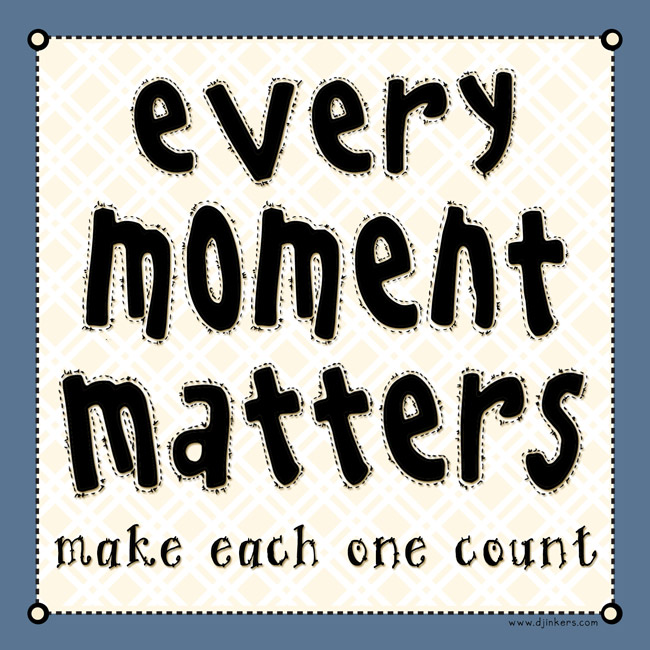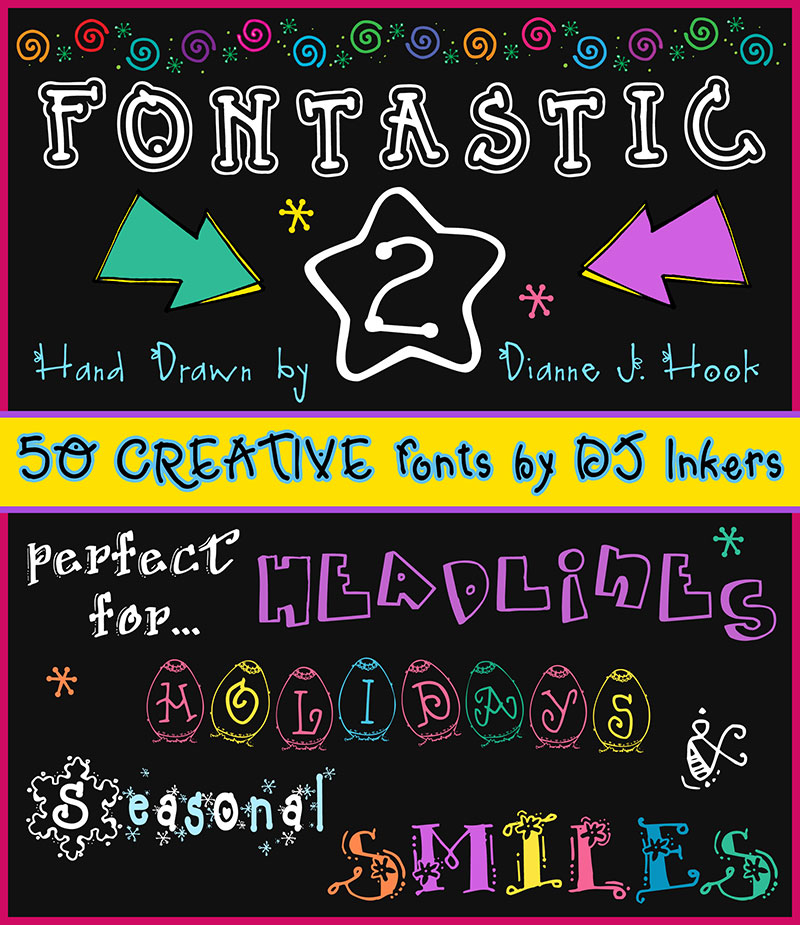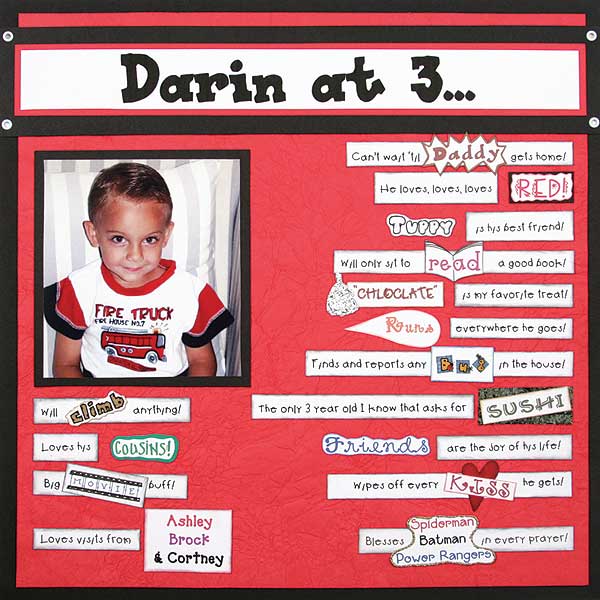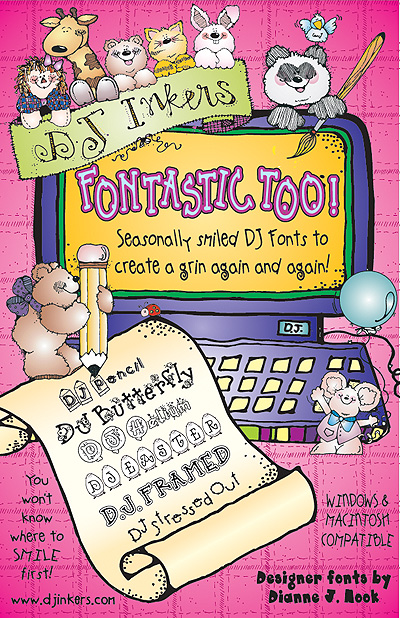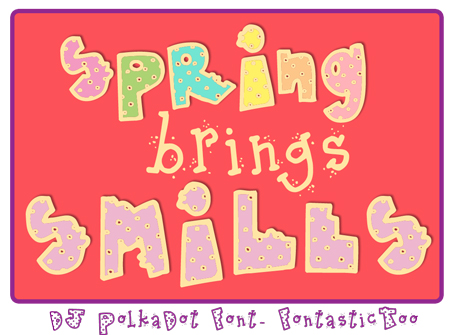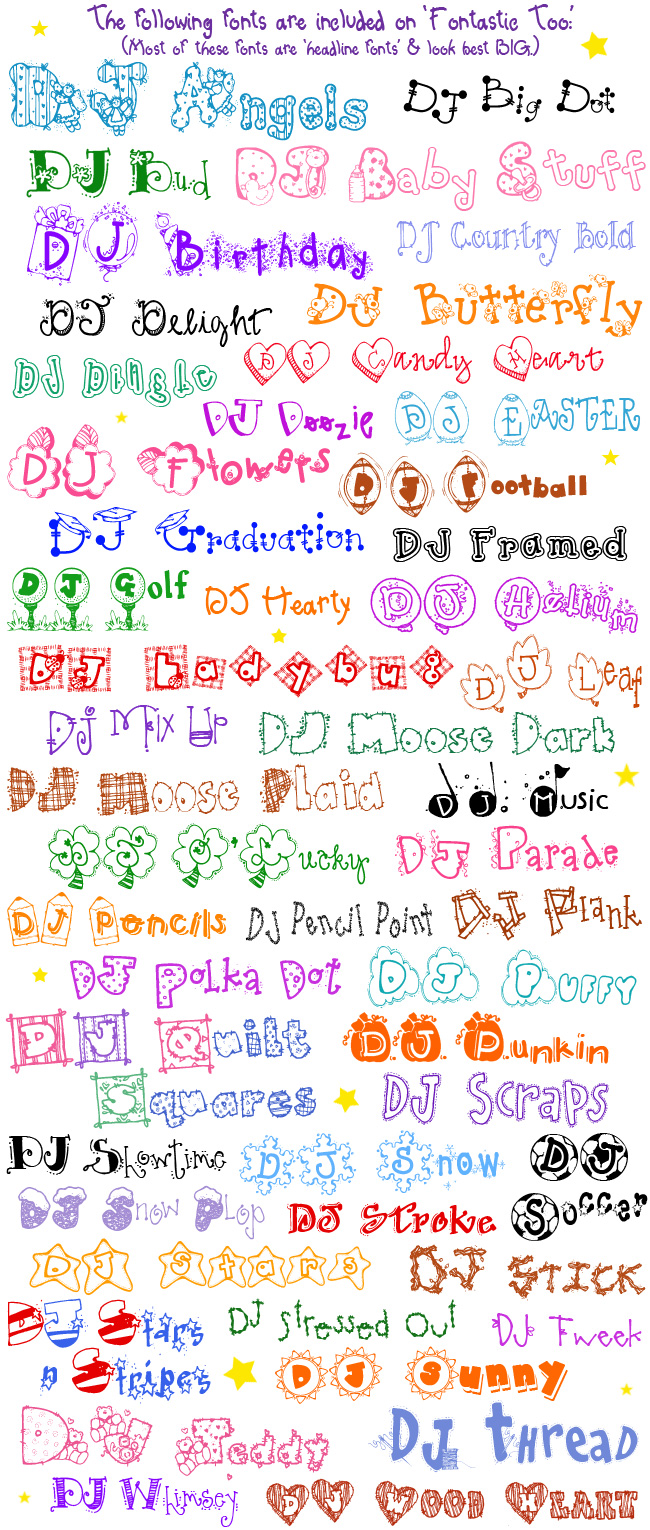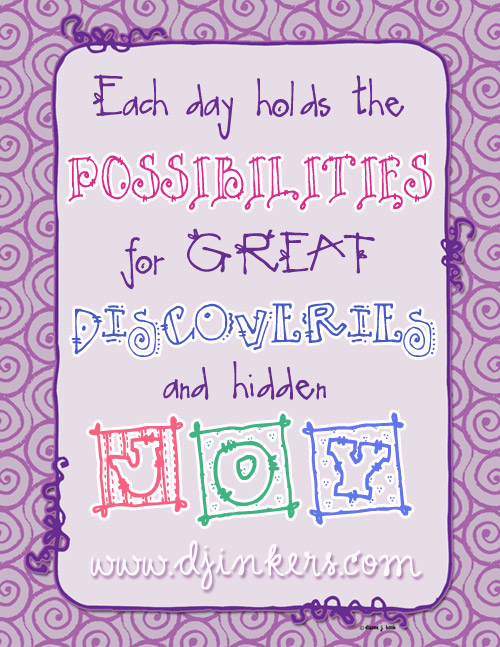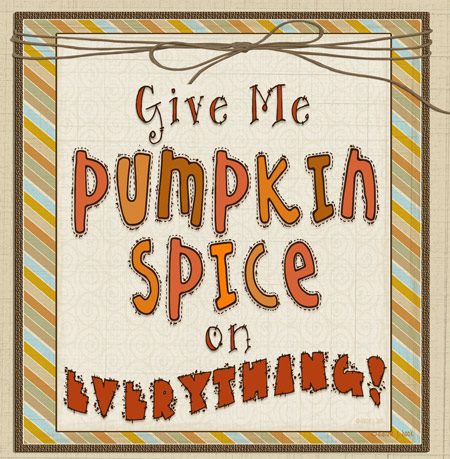
Font-astic 2 Collection - 50 Fun Headline Fonts by DJ Inkers
Font-astic 2 is full of fun and fabulous fonts to help you create smiles for every season. DJ Inkers second big font collection is perfect for headlines, holidays and more decorative lettering. We've added balloons, confetti, butterflies, flowers, snowflakes, teddy bears, baby stuff, quilt blocks, sticks, sports, stars and a little bit of sunshine! See additional images for lettering samples of each font included.
DJ fonts are perfect for teachers, computer crafting, holiday decorating, parties, customized home décor and typing up smiles. Hand written and drawn by Dianne J Hook © DJ Inkers.